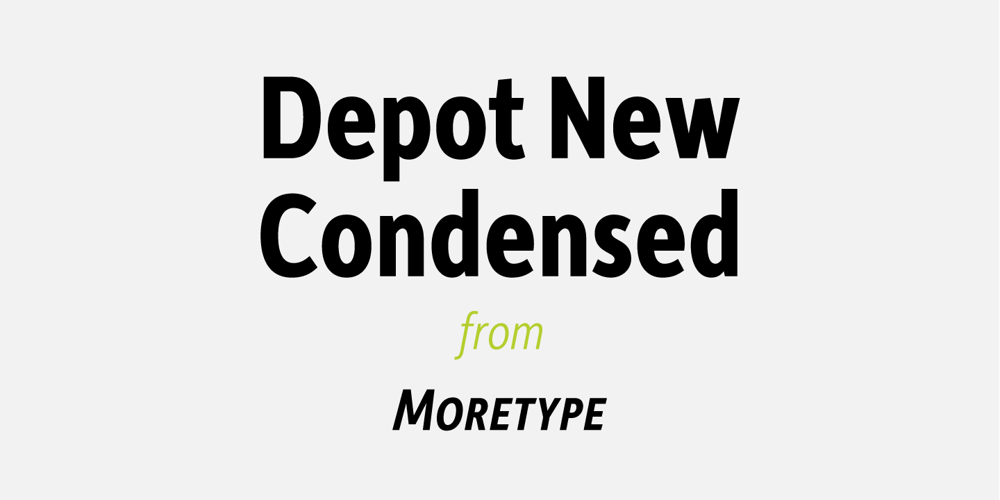
Depot New Condensed Font Family was designed by Chris Dickinson and published by moretype. Depot New Condensed contains 10 styles and family package options. Depot New Condensed is the space-saving complement to Depot New. With a narrower footprint it still contains all the non nonsense sturdy appeal of Depot New, making it an ideal addition to any Designers font collection.